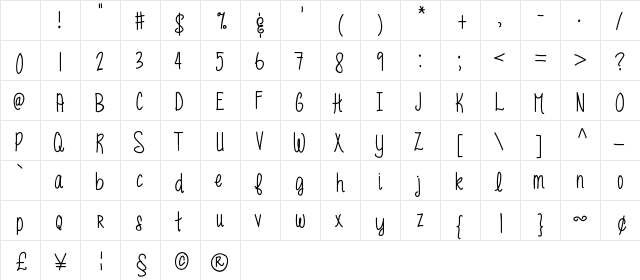
MRF funky fresh has an approachable, lighthearted character - its loose, expressive forms are well-suited to children's content, casual branding, and fun-first design.
Font Pairing: Pairs well with a rounded or humanist sans for body copy, maintaining the friendly tone without relying on MRF funky fresh to carry extended reading.
Pro Tip: Use MRF funky fresh at larger display sizes where its expressive character can land. Pair with a clean, simple sans for body copy to maintain readability.